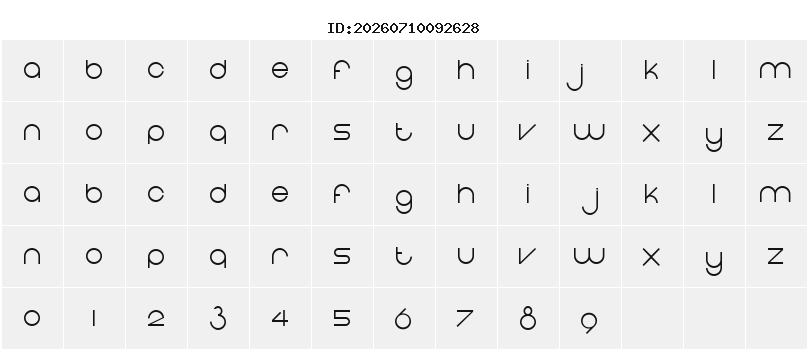
Eight One Preview
• Font Name: Eight One
• Full Font Name: Eight One
• PostScript Name: EightOne
• Designer: Tendron
• Manufacturer: Tendron
About Eight One.ttf
Eight One.ttf is a modern, elegant sans-serif font designed for ultimate readability and visual harmony. Perfect for branding, headlines, web design, and print materials.